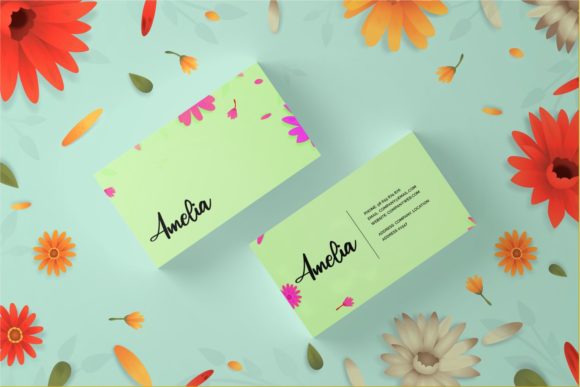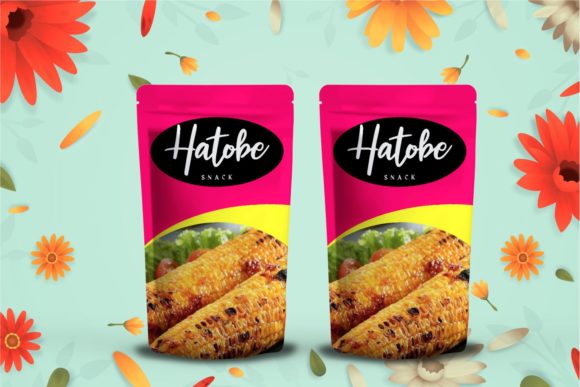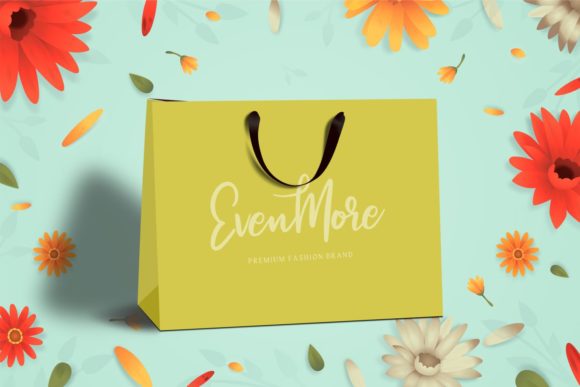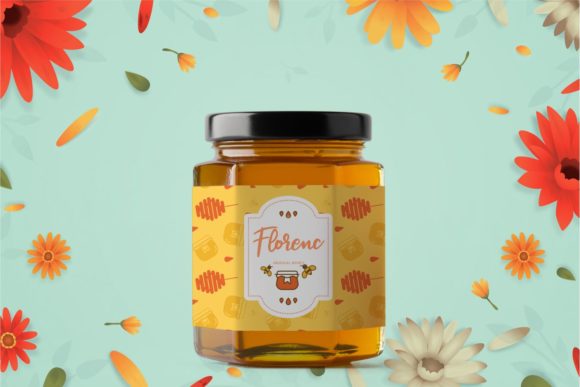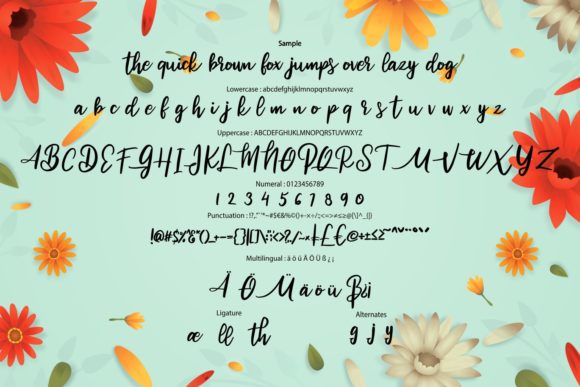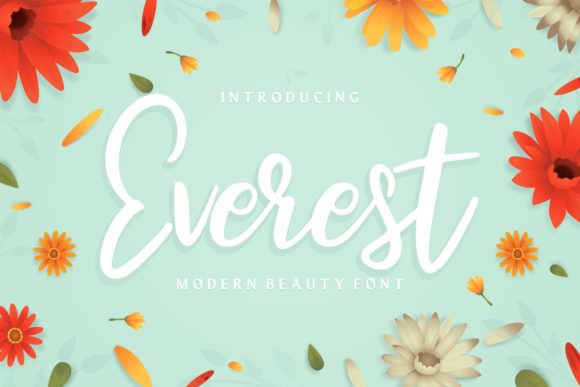
Introducing Everest Font: The Sweet and Delicate Handwritten Font for Romantic Designs
Are you a designer or crafter looking for a font that can add a touch of romance and personality to your designs? Look no further than Everest Font, a sweet and delicate handwritten font that’s perfect for creating beautiful wedding invitations, cards, and other designs that require a personal touch.
What Makes Everest Font Special?
Everest Font is a unique and charming handwritten font that’s designed to bring a sense of joy and elegance to your designs. Its dainty and delicate strokes make it ideal for creating romantic and whimsical designs that will capture the hearts of your audience. Whether you’re designing wedding invitations, greeting cards, or other paper crafts, Everest Font is the perfect choice.
Key Features of Everest Font
- Sweet and delicate handwritten font: Everest Font is a beautifully crafted handwritten font that’s perfect for creating romantic and personalized designs.
- Dainty and joyful: The font’s dainty strokes and joyful vibe make it ideal for creating designs that require a touch of whimsy and elegance.
- Perfect for wedding designs: Everest Font is a popular choice for wedding invitations, wedding cards, and other wedding-related designs.
- Easy to read and use: The font is clear, legible, and easy to use, making it perfect for designers and crafters of all levels.
How to Use Everest Font in Your Designs
Everest Font is a versatile font that can be used in a variety of design projects, including:
- Wedding invitations: Create beautiful and romantic wedding invitations that will set the tone for the big day.
- Greeting cards: Design personalized greeting cards for special occasions, such as birthdays, anniversaries, and holidays.
- Paper crafts: Use Everest Font to create beautiful paper crafts, such as scrapbook pages, journal entries, and card making projects.
- Digital designs: Use the font in your digital designs, such as social media graphics, blog posts, and website headers.
Tips for Pairing Everest Font with Other Fonts
To create stunning designs, you can pair Everest Font with other fonts that complement its sweet and delicate style. Here are some tips:
- Pair with a bold font: Pair Everest Font with a bold font to create contrast and add visual interest to your designs.
- Use a serif font: Pair Everest Font with a serif font to add a touch of elegance and sophistication to your designs.
- Try a script font: Pair Everest Font with a script font to create a romantic and whimsical design.
Everest Font is a beautiful and delicate handwritten font that’s perfect for creating romantic and personalized designs. Its sweet and joyful vibe makes it ideal for wedding invitations, greeting cards, and other paper crafts. With its ease of use and versatility, Everest Font is a must-have font for designers and crafters who want to add a touch of elegance and whimsy to their designs.